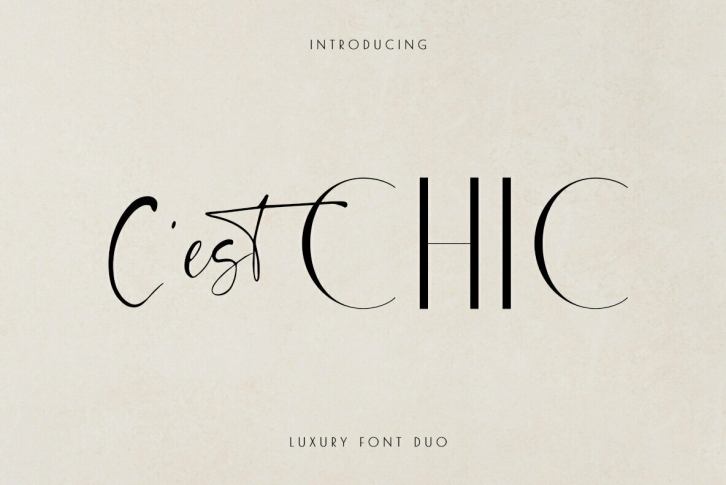
C'est Chic is a super stylish font duo. Chic Sans Serif is an elegant & classy typeface with French charm. Chic Script is a casual hand-drawn font with ligatures ready to add unique look and bloom on your design.
Chic Sans Serif typeface that contains upper and lowercase characters, number 0-9 and a range of punctuation and symbols.
Chic Script font that contains upper and lowercase characters, number 0-9 and a range of punctuation and symbols, ligatures to help the text flow naturally and add a custom-made feel).